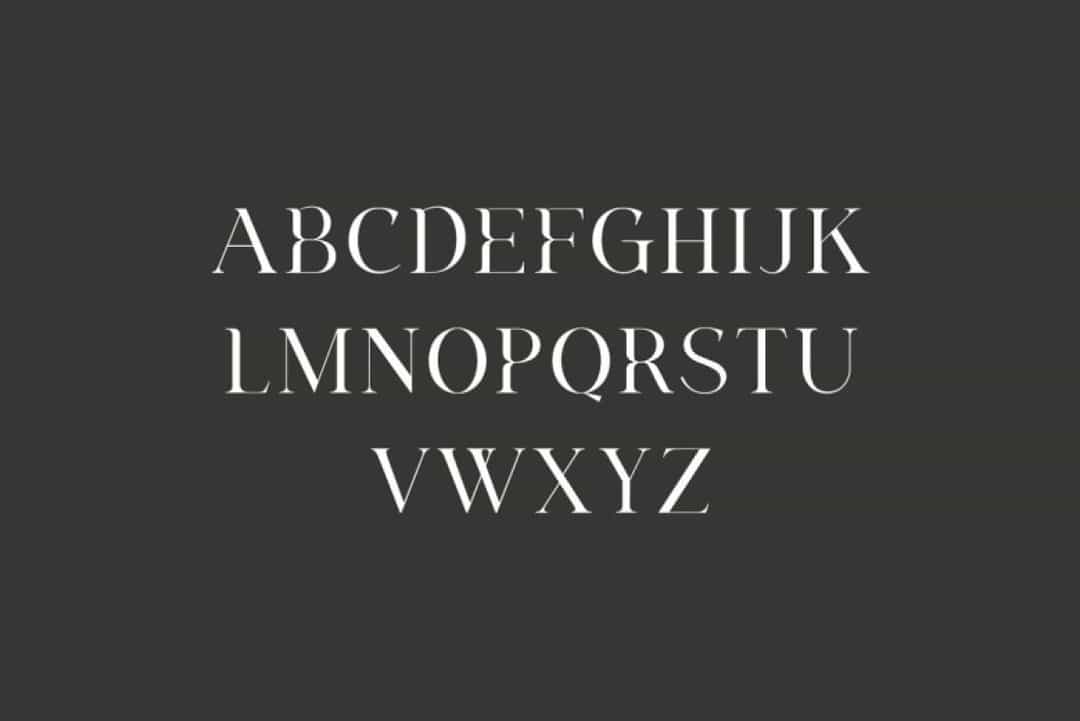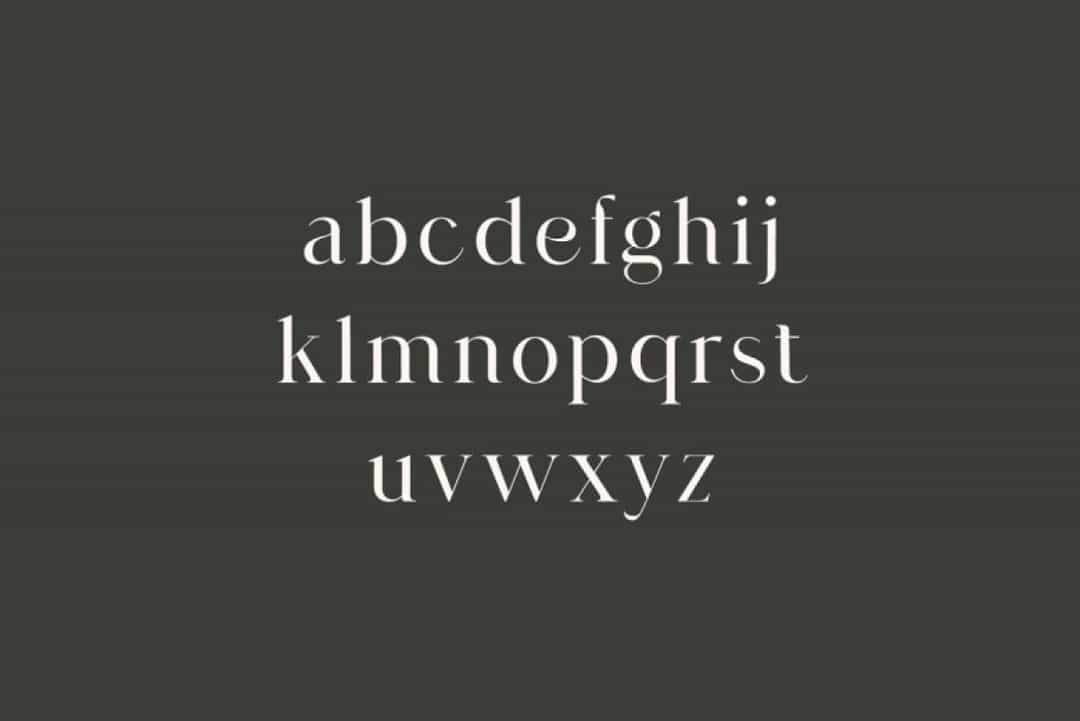
Agathias Stenchy is a modern display serif font with elegant, classy modern features. Perfect for stationary designs, signatures, logos wedding designs, typography quotes book or magazine covers headers website headers clothing branding packaging designs among others, it adds sophistication and modernity.